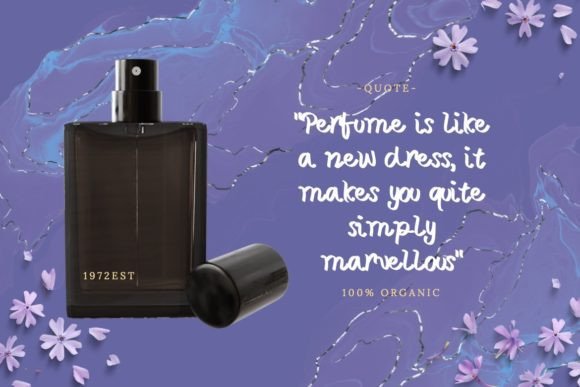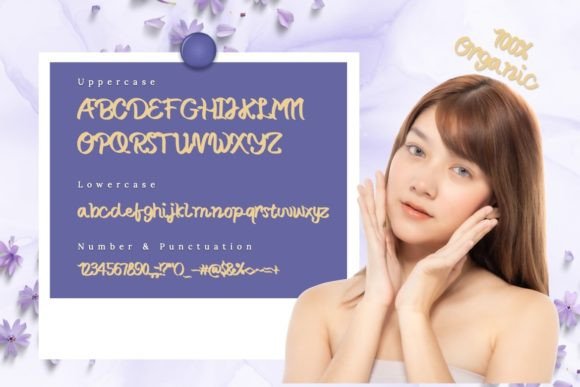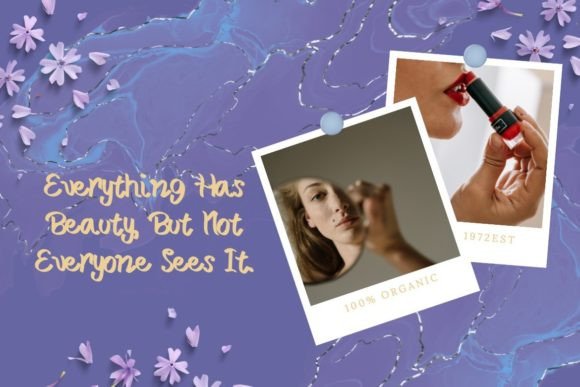
Introduction to Quetwai Font
Quetwai is an attractive and eye-catching handwritten font that delivers a bold and impactful message.
Its thick brushstrokes and dramatic letterforms add a sense of urgency and dynamism to any design Perfect for creating powerful headlines, logos, and posters, this font is sure to make a lasting impression.
Why Choose Quetwai Font?